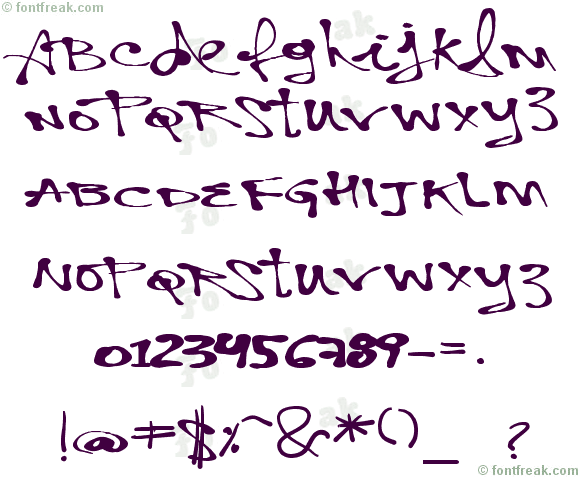
Vtks Personal
About Vtks Personal
Vtks Personal, created by Douglas Vitkauskas, is a captivating handwritten font that adds a personal touch to any design project. This font is categorized as a script style, characterized by its fluid strokes and informal elegance. The visual characteristics feature a medium stroke weight with slight variations, creating an organic feel that mimics natural handwriting. The letters have a moderate contrast, giving them a lively and approachable appearance, while the spacing is well-balanced, ensuring readability without compromising style.
Ideal for a range of applications, Vtks Personal is particularly suited for wedding invitations, where its charming script can evoke romance and warmth. It also shines on greeting cards, providing a heartfelt touch for special occasions. Restaurant menus can benefit from this font, as it adds a welcoming vibe that enhances the dining experience. Additionally, Vtks Personal is excellent for branding purposes, especially for small businesses looking to convey a friendly and approachable image. Content creators will find this font useful for social media graphics, where a personal touch can enhance engagement and connection with followers.
The target audience for Vtks Personal includes graphic designers, small business owners, and content creators who seek a unique font that stands out. This font offers versatility and personality, making it a valuable addition to any designer’s toolkit.
What sets the Vtks Personal font apart is its ability to blend style with substance. It captures the essence of handwritten text, providing an authentic feel that can elevate any project. With a Vtks Personal font free download available, it's an accessible choice for anyone looking to infuse their designs with creativity and individuality.